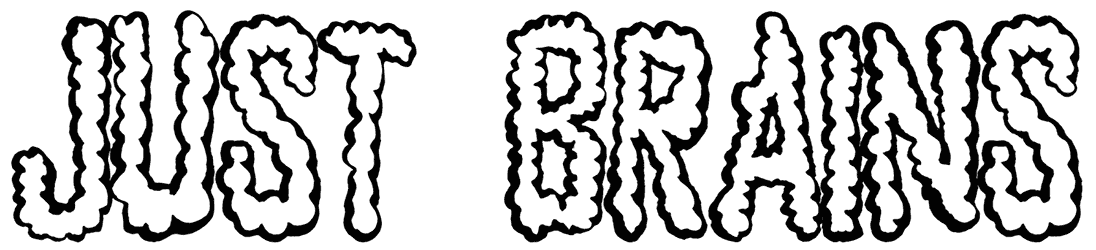
Just Brains Font
Just Brains would be a weird and at the same time interesting set for your creepy project with its brain texture letter face. This cloud font can be matched with different designs and bring them an eerie mood. There is no backup for lowercase letters and punctuation marks, but Just Brains would be impressive for many projects, from book covers to illustrations.